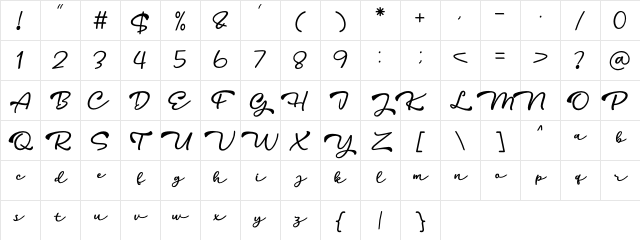
Complete Harith DEMO Regular glyph index. Displaying only characters natively supported by Harith DEMO Regular font.
Harith DEMO is a composed and adaptable typeface that performs quietly and consistently across a wide range of design contexts.